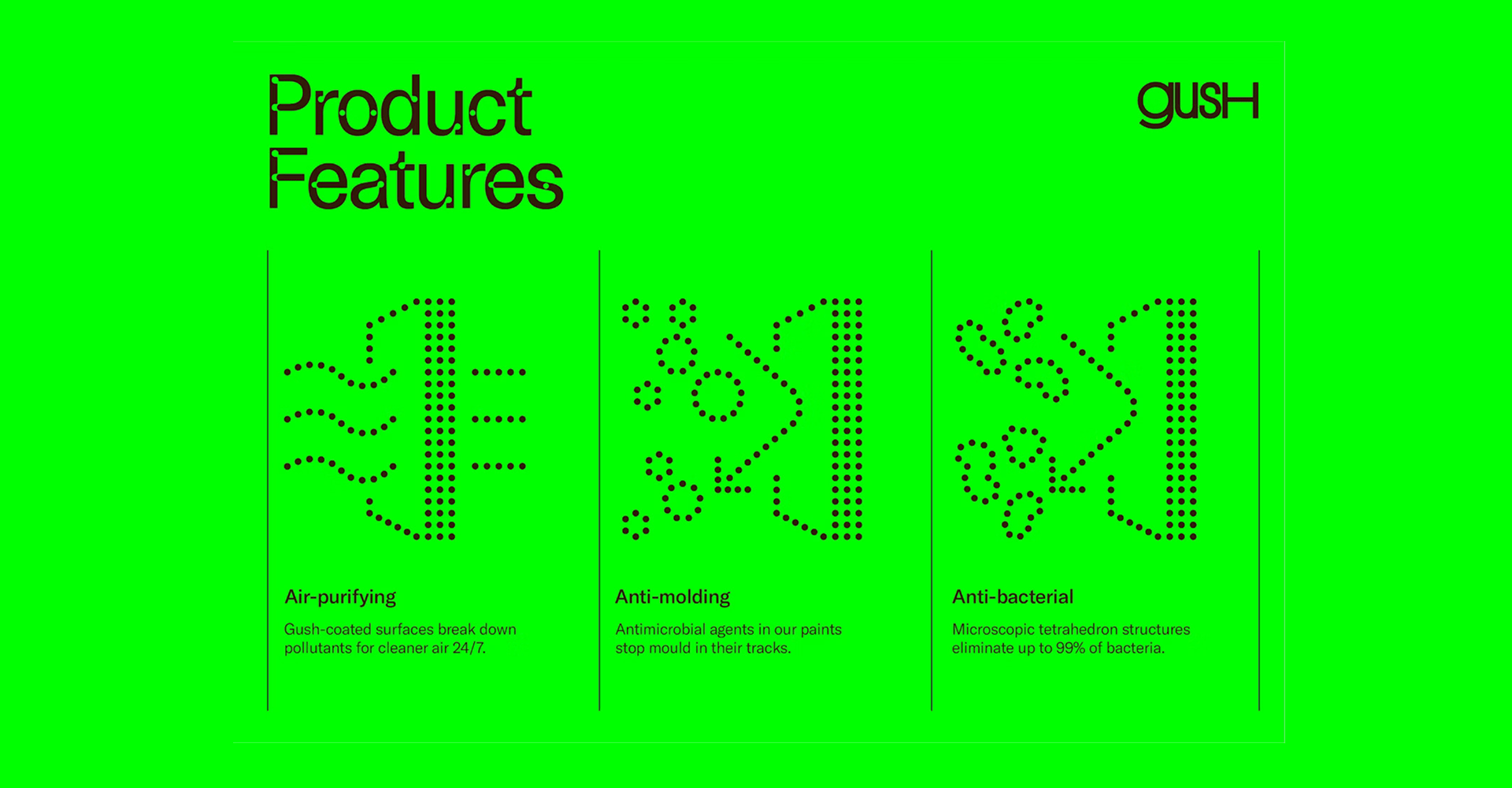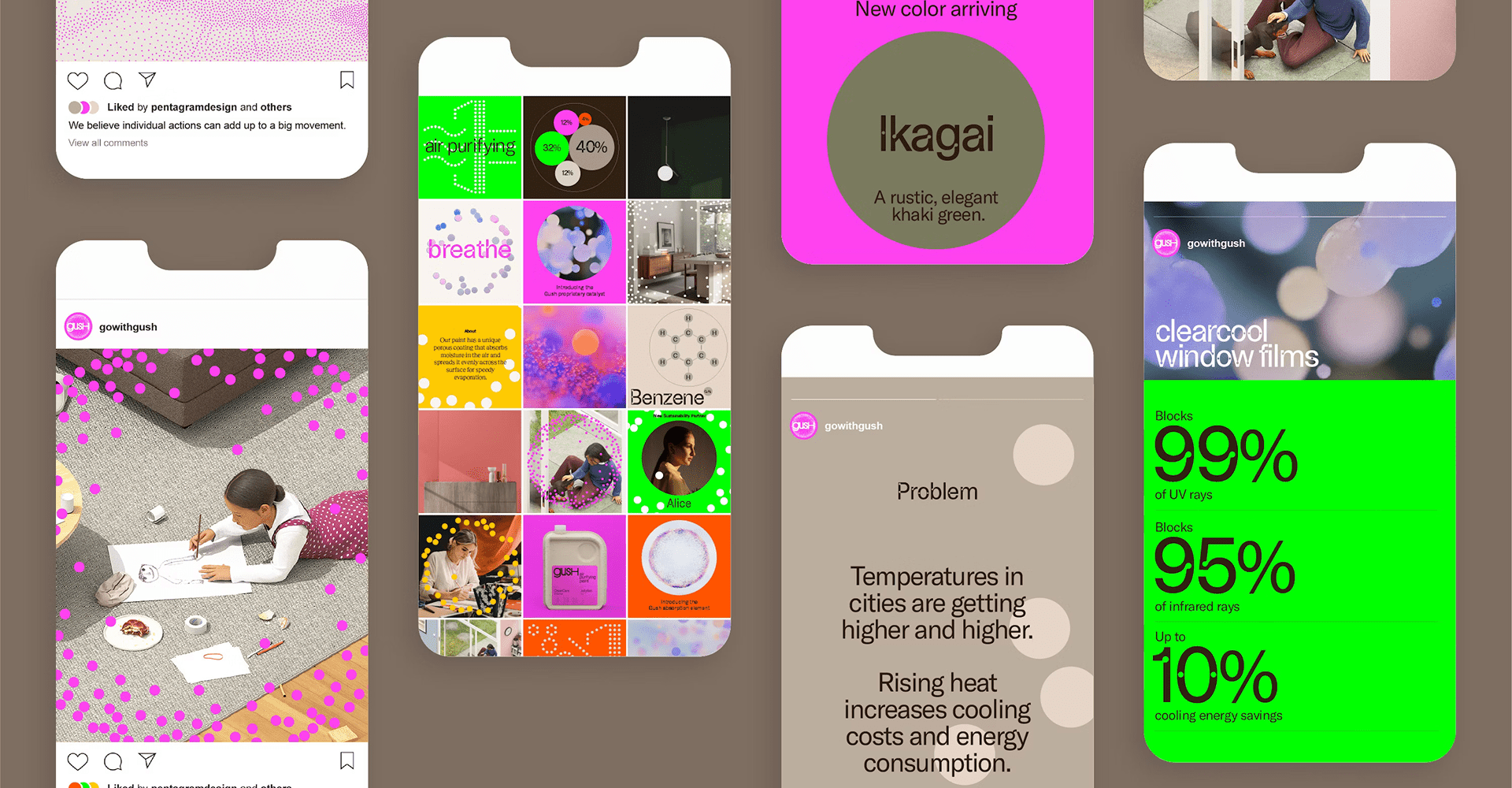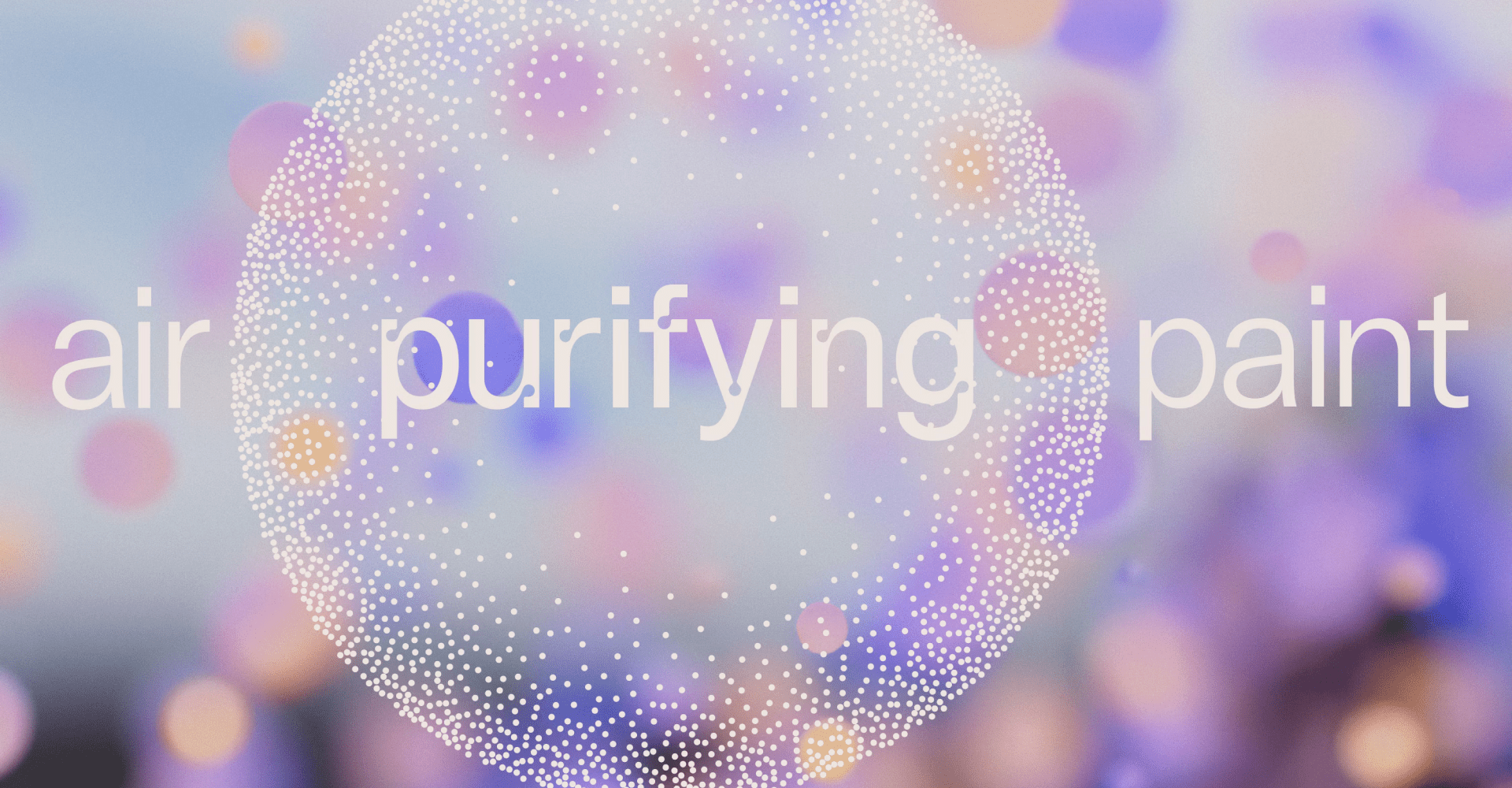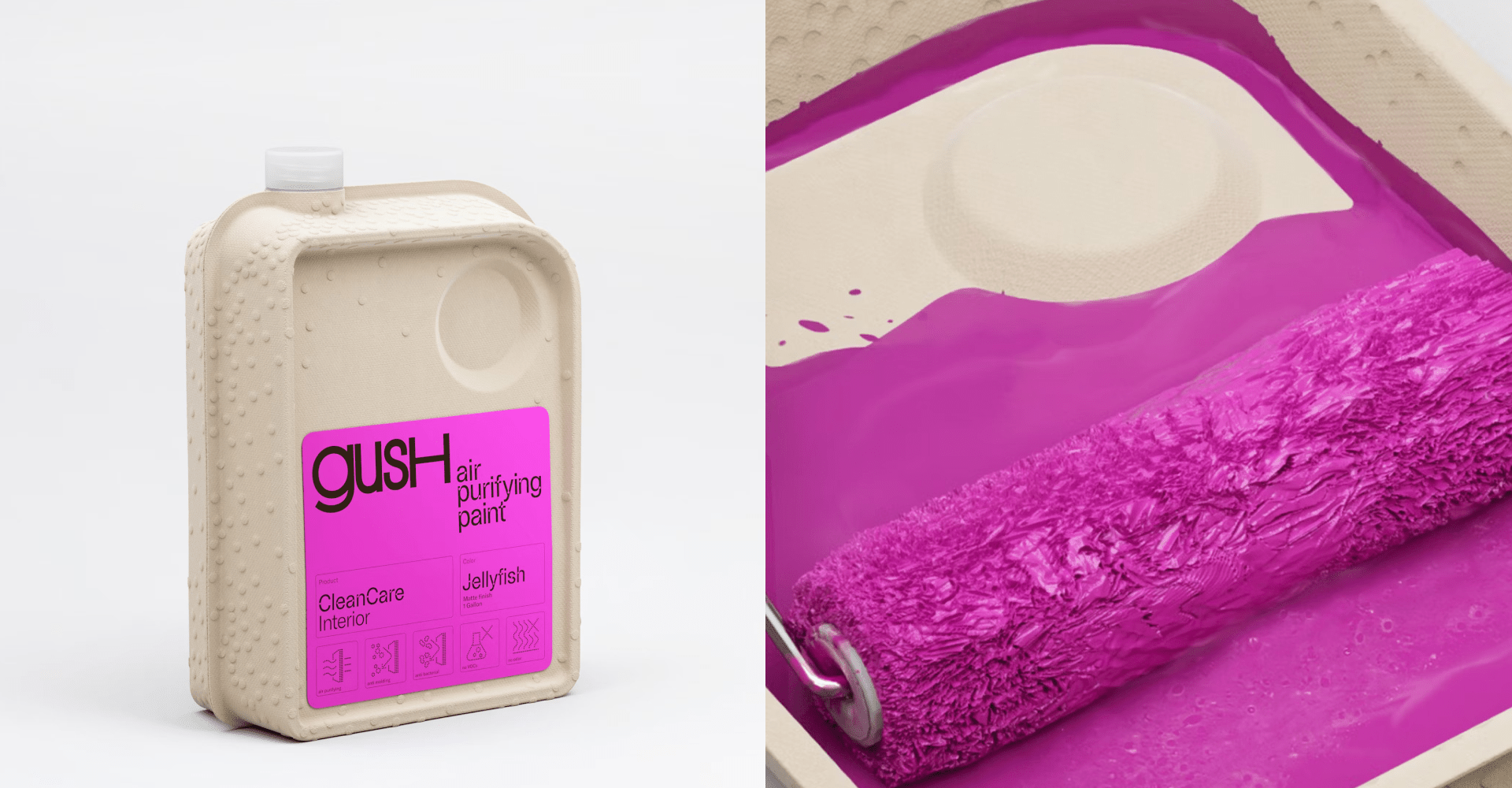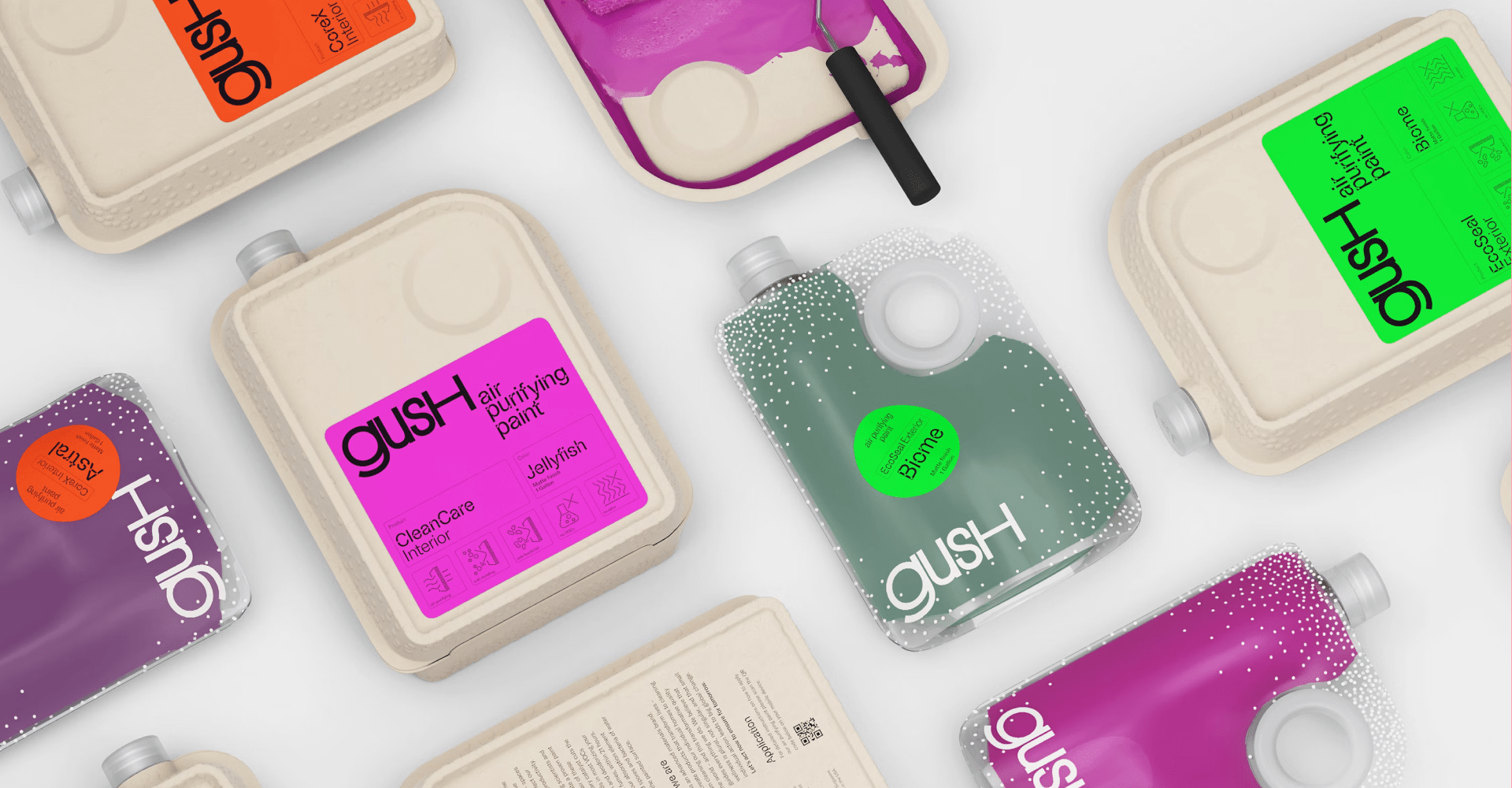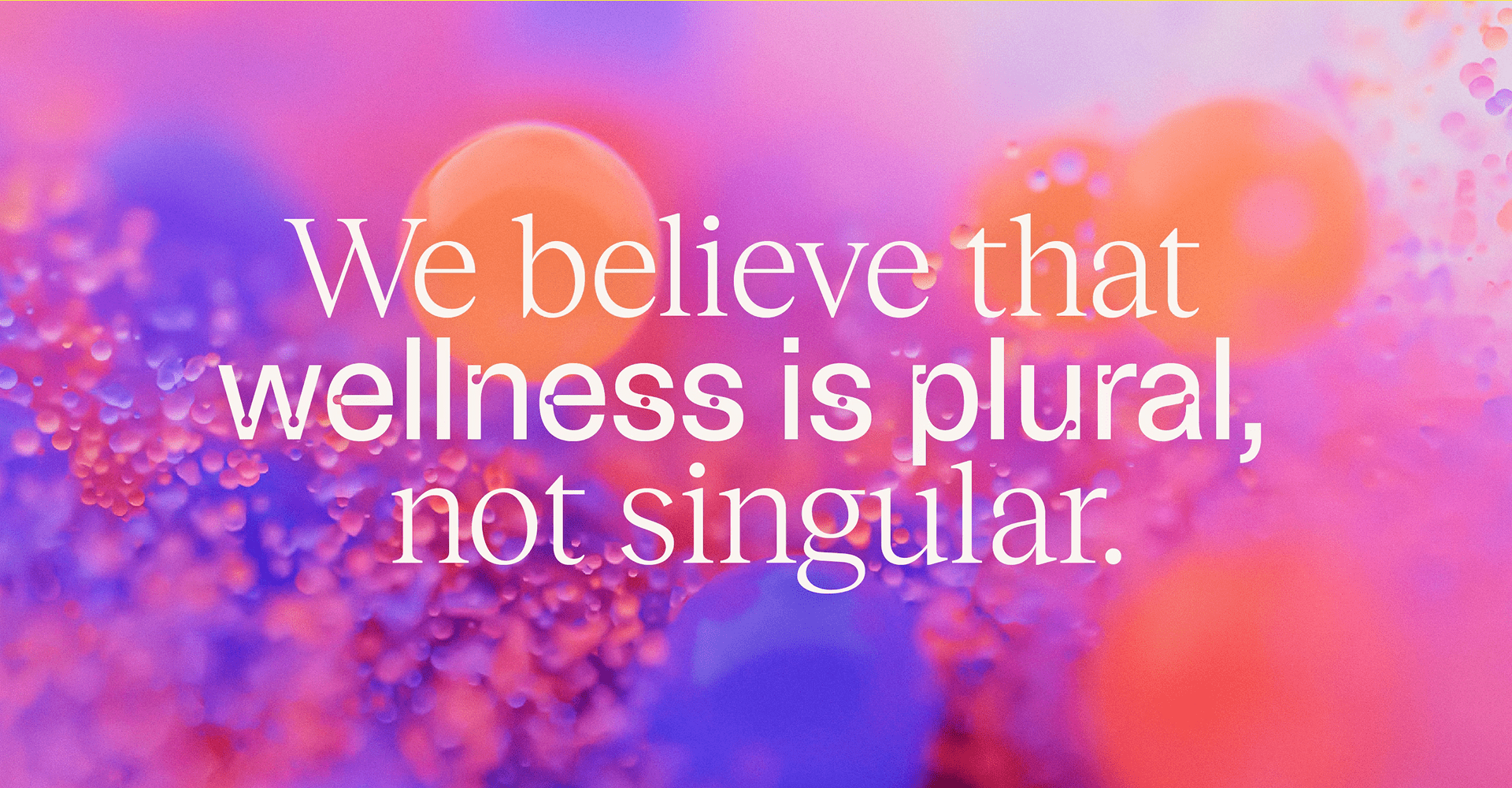
A few years ago. Gush, a Singapore-based company focused on creating air-purifying paint, faced a unique challenge. Their product’s core benefit, cleaning the air, was invisible. To make this unseen power tangible, Gush turned to Pentagram, the renowned design studio, to develop a comprehensive visual identity. Their solution was to create a brand framework that not only visually represents the product’s function but also reinforces the company’s belief that small individual actions can lead to a significant positive impact on the world. The resulting identity is a testament to how design can transform an abstract concept into a compelling and optimistic brand story.
The Circle as the Main Symbol
Gush’s visual identity centers itself through the circle, an element that creates endless imagery possibilities. This simple, universal shape is used to represent molecules and particles, the very building blocks of the air that Gush’s paint purifies. Pentagram used these circles to create a dynamic visual language that appears across all brand materials, from imagery to data visualizations. This motif visually connects the smallest, most fundamental particles to the larger change that the brand aspires to create. It transforms a static brand element into an active symbol of a cleaner future.
Typography with a Scientific Flair
The visual identity of Gush is deeply integrated into its typography, where letterforms become a part of the core concept. The primary typeface, ABC Camera by Dinamo, was chosen specifically for the circular light traps or “holes” within its letters. This unique feature directly mirrors the molecular particles that are at the heart of Gush’s air-purifying mission. To balance this scientific precision with a human touch, the contemporary serif typeface Reckless Neue by Displaay is used as the secondary display font. Finally, the brand’s body text is set in GT America by Grilli Type, ensuring clarity and readability.
A Sustainable Packaging Solution
Recognizing the inefficiencies and environmental waste associated with traditional round metal cans, Pentagram partnered with product designer Piotr Woronkowicz to develop a new container that is not only polished but fundamentally more sustainable.
The innovative design features a square footprint for increased shipping efficiency and is made from low-impact materials. The container opens to reveal two trays, with the paint housed in a transparent bag made of biodegradable acetate. This bag has a flat bottom, allowing it to stand upright, and a clear cap to make the paint color visible. The main container is crafted from molded paper pulp, a material never before used for paint trays in the United States. The packaging’s circular handle subtly echoes the Gush symbol, and a bubble pattern is embossed into the molded pulp, a final detail that reinforces the brand’s core concept.
Gush: Beyond Surface
The Gush product itself stands out not only for its air-purifying properties but also for its commitment to sustainability beyond the paint. The brand’s philosophy is captured in its tagline, “Beyond Surface,” which highlights its goal of addressing broader environmental issues. This is exemplified in the new, innovative packaging Pentagram designed: a low-impact container made from molded paper pulp. The container’s square shape allows for more efficient shipping, reducing the carbon footprint of transportation. This holistic approach proves that Gush’s dedication to a cleaner world extends far beyond the liquid inside the can.